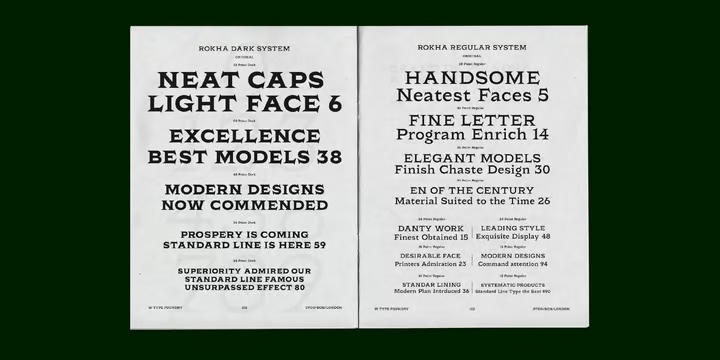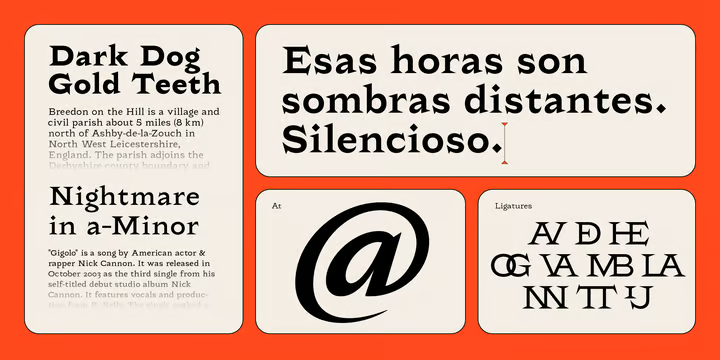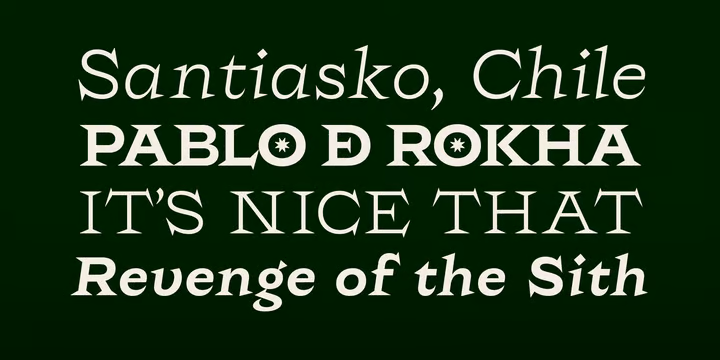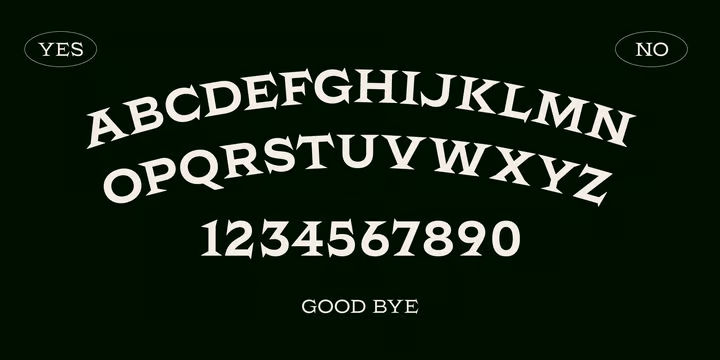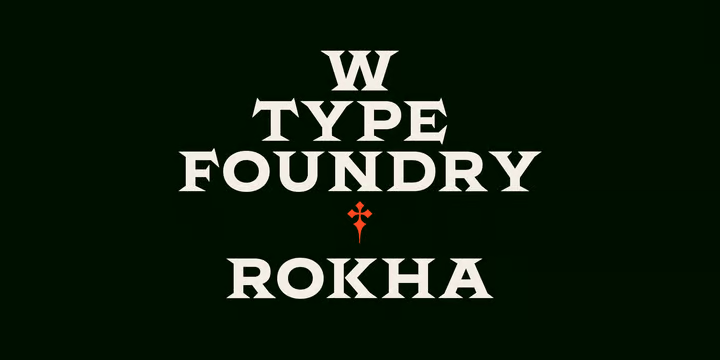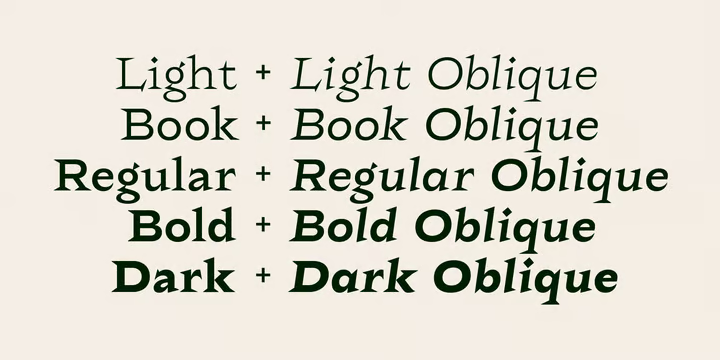
Rokha Font Family
Rokha is a wedge-serif typeface with 5 weights plus obliques. Its sharp serifs were inspired by Goudy’s classic Copperplate Gothic, Rokha feels land looks like carved stone, edgy and sharp. Serifs are exaggerated, pointy, and strong, this font demands attention from the viewer at all costs. Lower and uppercase letters make it more amicable in different contexts and give it extra versatility. Its striking presence makes it ideal for display, headlines, posters, big branding, and catching any viewer’s eye.
Rokha Font Family is a Font Family font that brings a professional and versatile look to your projects. Rokha is a wedge-serif typeface with 5 weights plus obliques.